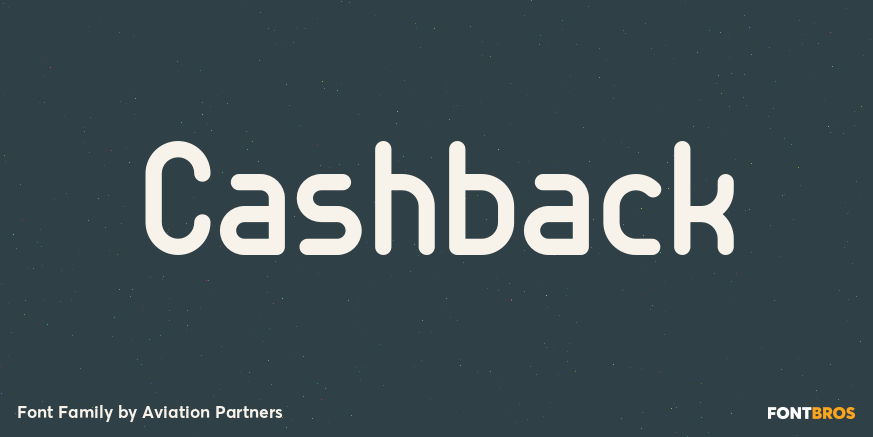
HomeFont BrosSans SerifCashback Sans Serif Cashback FacebookXPinterestWhatsApp 1 of 1 About Cashback A rounded geometric font of uniform stroke weight. All strokes have rounded ends and with the exception of the math symbols, there are no diagonal strokes.  DOWNLOAD ON FONT BROSThis font is sold and delivered by Font Bros. Font Canyon may earn a commission if you buy through this link. People also explored Fonix Font Mentimun Font Amberlayton Font Monogram Lovers Gnome Font Halloween Font New Year Font Sunshine Font Wallet Font Street Butter Font 230 0 TagsCashback Font Previous articleAldinNext articleSaratoga Slim LEAVE A REPLY Cancel reply Comment: Please enter your comment! Name:* Please enter your name here Email:* You have entered an incorrect email address! Please enter your email address here Website: Save my name, email, and website in this browser for the next time I comment. Personal Use Free White Rose Personal Use Free Read more about this font Girls Personal Use Free Read more about this font Barokah Personal Use Free Read more about this font Gila Personal Use Free Read more about this font BLOG How to Cut Any Font on Cricut: Convert a Font to SVG (Free) Turn any font into a clean SVG so it cuts crisp on Cricut - a quick 3-step workflow using a free font-to-SVG tool. How to Install and Use Fonts on Windows, macOS, and Web Projects Top 10 Handwritten Fonts That Elevate Your Designs Exploring Font Trends